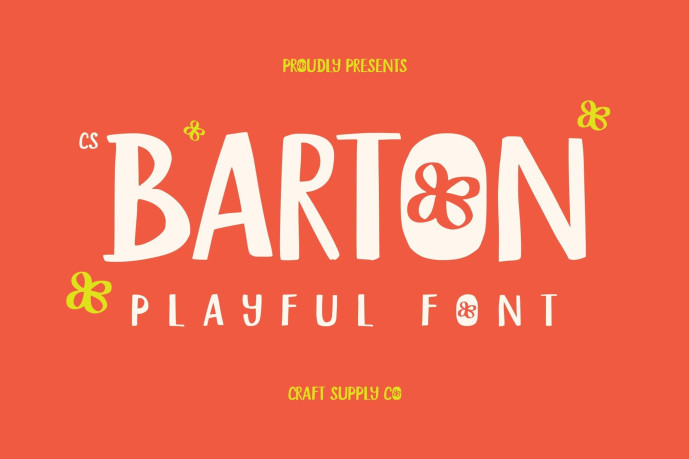
Barton – Playful Marker Font
Barton – Playful Marker Font, this font captures the spontaneous energy of marker strokes, delivering a playful and stylish handwritten display font feel. Its bold yet relaxed form makes text come alive with a casual vibrance, perfect for designs that want to radiate authenticity and approachability.
Floral Inspiration with Feminine Character What makes this font unique is its subtle inspiration from flowers. This touch infuses the font with a soft, slightly feminine quality, giving it warmth and delicacy while maintaining the confidence of a marker style. The result is a font that balances charm with bold expression.